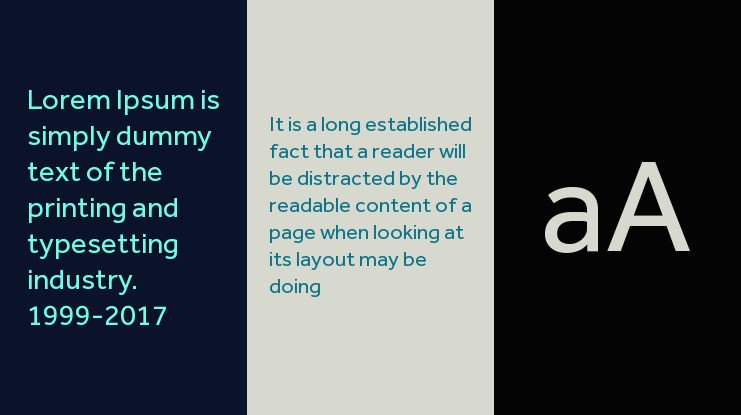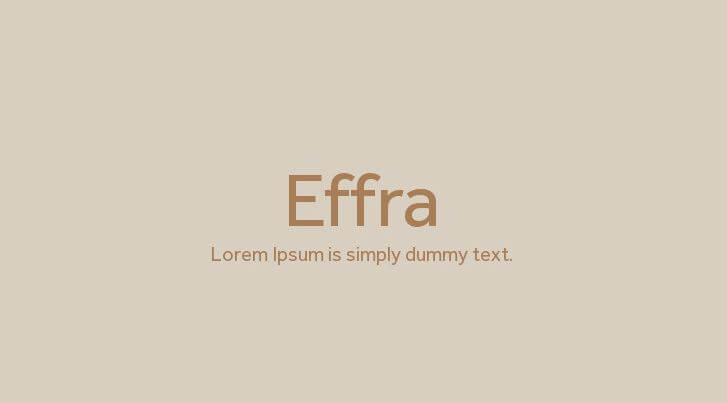
Effra Font
Effra Font is widely known for its Bold and Italic function. This is also utilized in Adobe. This typeface has a second name called Gotham font. You’ll be stimulated through the way of the beneficial useful resource of hundreds of those fonts.
Hold in thoughts despite the fact that that locating the first-rate font is simplest surely an area to begin. Similar to brusher font, this famous font perfectly suited for picture layout programs beginning from editorial, agency, internet, interaction to product layout. Effra Font Free Moreover to the regular styles, the exchange versions will flip the font proper into an exceptional partner for modern-day, technical, and gift-day impressions similarly to excessive specific, highly-priced, and undying. Includes an entire set of characters that lets you deal with several languages in its 4 variations.